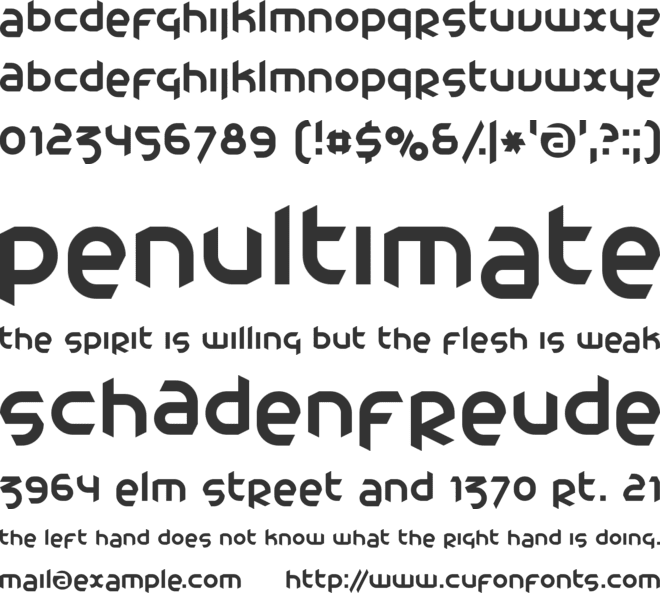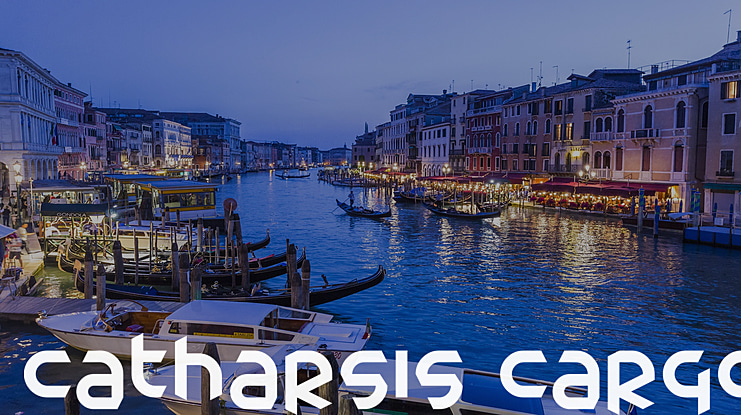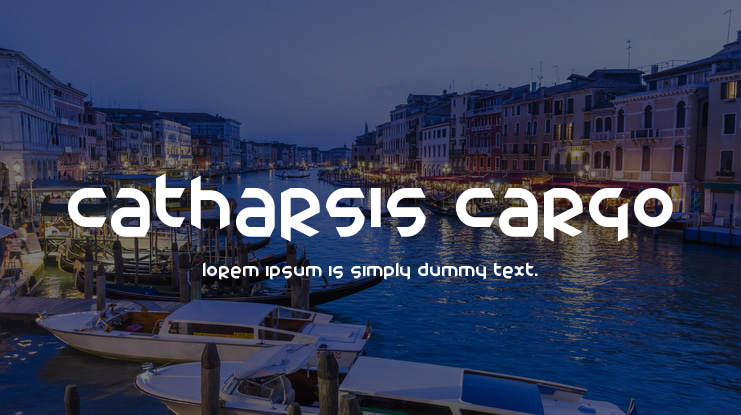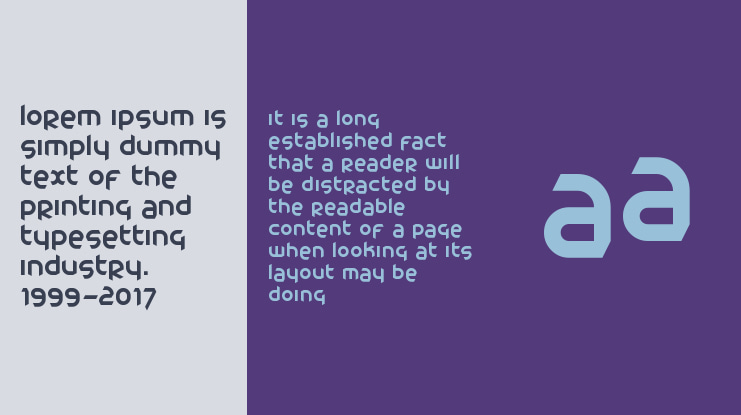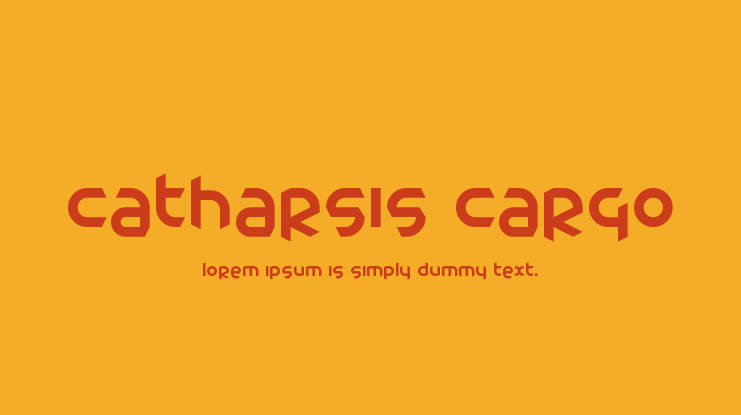
Catharsis Cargo Font
Catharsis Cargo is a bit of an experiment, insofar as it probably violates quite a few laws of the typographic arts... it's certainly no good for writing a diploma thesis, but it oughta do well for the "Caution: Fragile" print on a cargo crate, or for the "Warning: Variable Gravity" sign in a shuttle hangar. ;-)